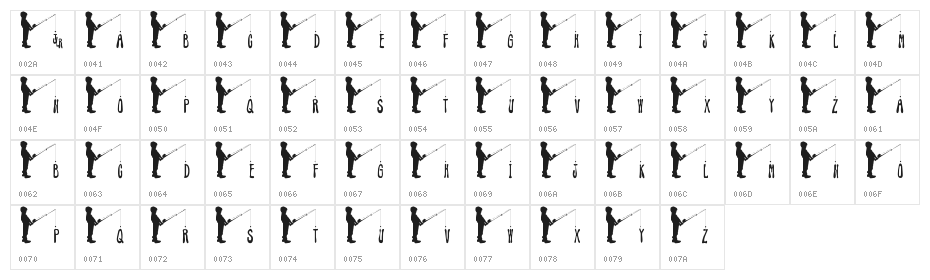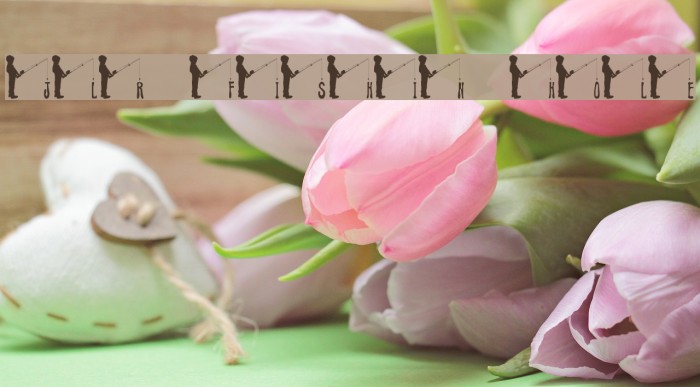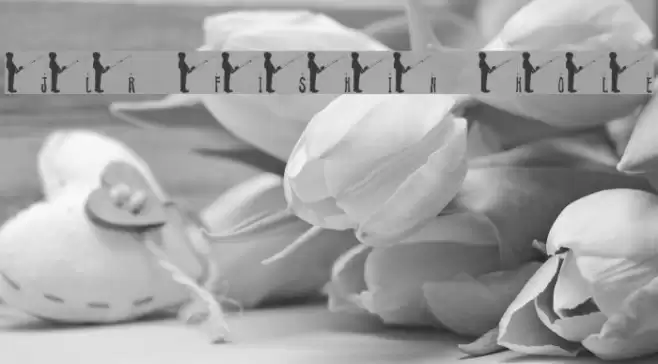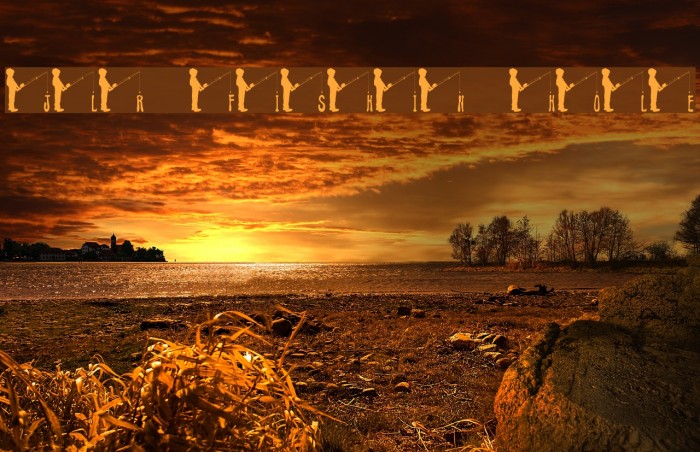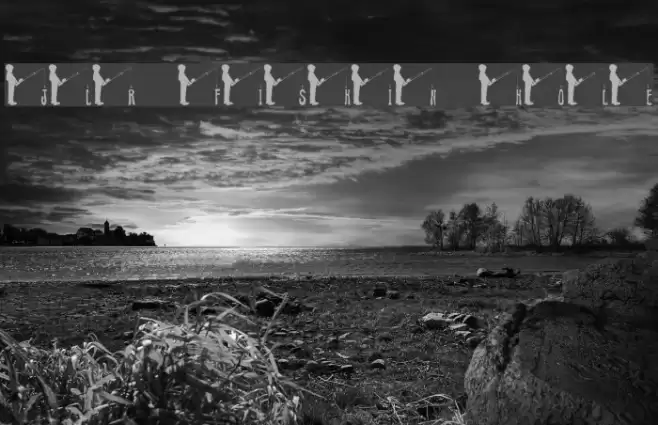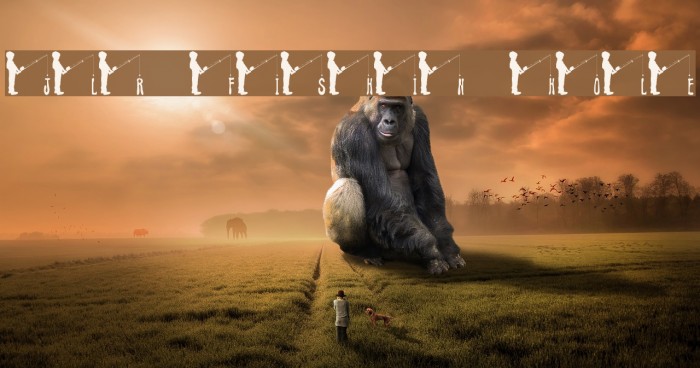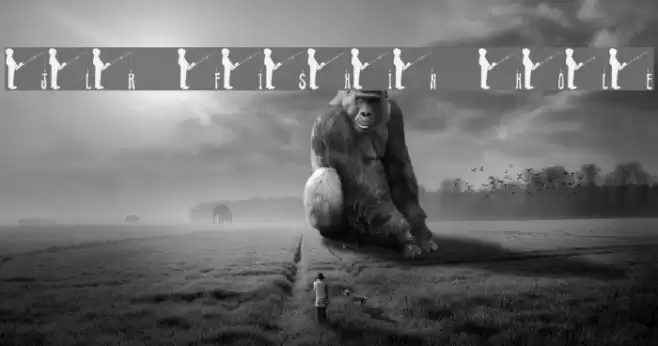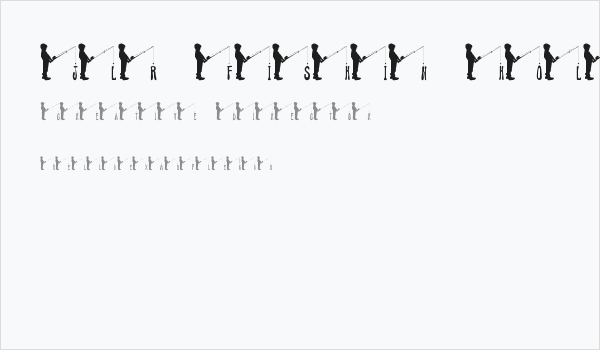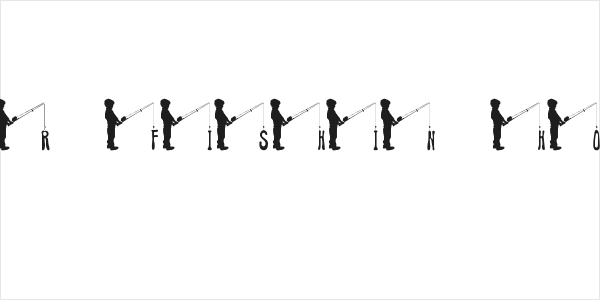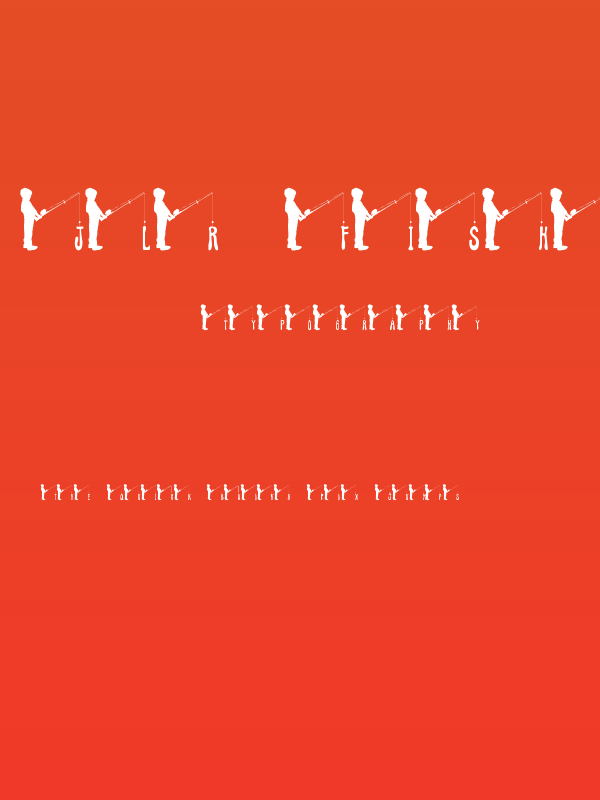
JLR Fishin' Hole Font
JLR Fishin' Hole Description
This unique decorative font features silhouettes of a child fishing, with each letter integrated into the fishing line. The design is whimsical and playful, capturing a sense of nostalgia and outdoor adventure. Each character is distinct, with the silhouette of the child remaining consistent across the alphabet, creating a cohesive and charming visual theme. The letters are bold and clear, ensuring readability while maintaining the decorative aspect. This font is perfect for projects that aim to evoke a sense of fun and creativity, such as children's books, playful branding, or themed event invitations.